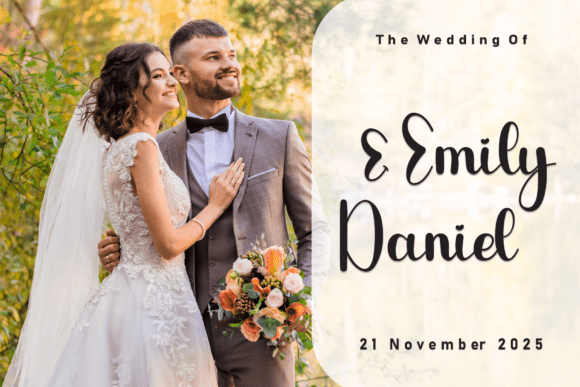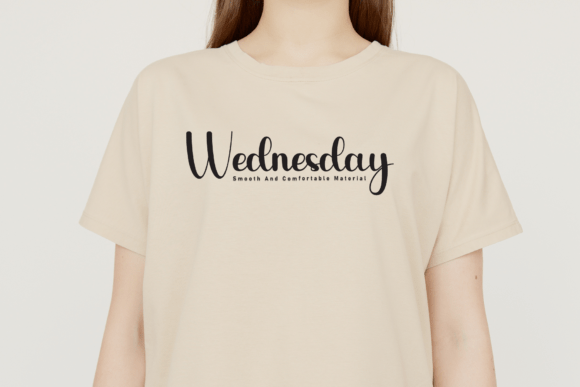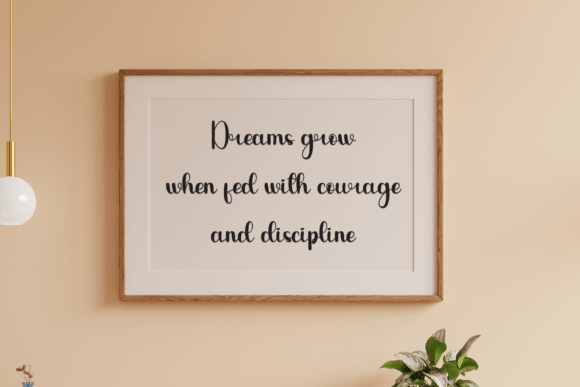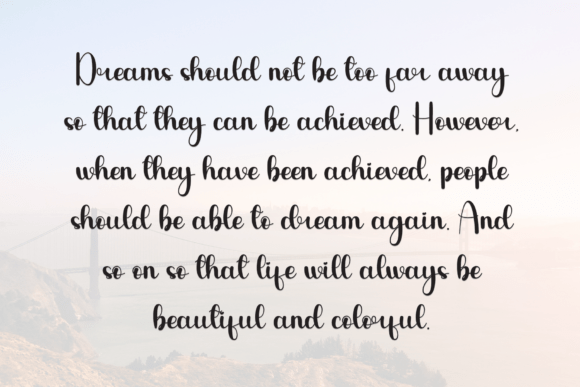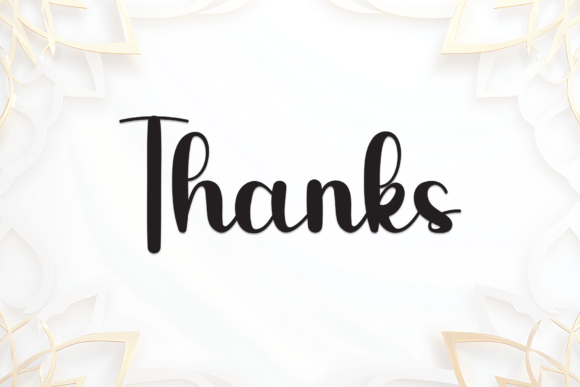
Elegant Font: Elevate Your Designs with Refined Handwritten Charm
In the world of typography, few fonts capture the essence of sophistication and warmth as effortlessly as Elegant Font. This refined handwritten typeface is meticulously designed to convey a sense of charm and authenticity, making it an ideal choice for designers and crafters seeking to add a touch of elegance to their projects. Whether you’re working on wedding invitations, greeting cards, branding materials, or creative endeavors, Elegant Font offers a natural, personal feel that is sure to leave a lasting impression.
The Characteristics of Elegant Font
Elegant Font boasts graceful strokes and fluid movement, which collectively contribute to its distinctive, organic feel. The balanced letterforms are delicately crafted to exude a sense of refinement while maintaining excellent readability. This harmonious blend of delicacy and legibility makes Elegant Font suitable for both print and digital applications. The font’s versatility allows it to seamlessly integrate into various design contexts, ensuring that your work stands out with a polished, expressive character.
PUA Encoding for Enhanced Customization
One of the key features that set Elegant Font apart is its PUA (Private Use Area) encoding. This encoding ensures easy access to all glyphs, swashes, and alternate characters, allowing for seamless customization and creativity. Designers can effortlessly navigate through the font’s extensive range of characters to select the perfect elements for their projects. This level of accessibility not only streamlines the design process but also empowers designers to experiment with unique typographic expressions.
Ideal Applications for Elegant Font
Elegant Font’s versatile nature makes it an excellent fit for a wide array of design applications. Some of the most popular uses include:
- Wedding Invitations: Add a touch of romance and sophistication to your wedding stationery with Elegant Font’s charming and refined appearance.
- Greeting Cards: Create heartfelt and visually appealing greeting cards for special occasions, such as birthdays, anniversaries, and holidays.
- Branding Materials: Elevate your brand’s visual identity with Elegant Font’s elegant and professional aesthetic, perfect for logos, packaging, and marketing materials.
- Creative Projects: Infuse your creative endeavors, such as art journals, scrapbooking, and digital art, with a personal and artistic touch using Elegant Font.
Why Choose Elegant Font?
For designers and crafters seeking a handwritten font that embodies both elegance and expressiveness, Elegant Font stands out as a superior choice. Its unique blend of warmth, charm, and sophistication allows it to bring a distinctive character to any project. Furthermore, the font’s PUA encoding and extensive range of glyphs, swashes, and alternate characters provide unparalleled flexibility and creative freedom.
Tips for Maximizing Elegant Font’s Potential
To fully leverage Elegant Font’s capabilities and make the most of its elegant features, consider the following tips:
- Experiment with Swashes: Take advantage of the font’s swashes and alternate characters to add flair and personality to your designs.
- Mix and Match: Combine Elegant Font with complementary fonts to create visually striking typographic hierarchies.
- Pay Attention to Spacing: Adjust the spacing between letters and words to enhance the font’s natural flow and readability.
- Explore Digital Capabilities: Don’t hesitate to use Elegant Font in digital projects, such as website designs and social media graphics, to add a personal touch.
In conclusion, Elegant Font offers an unbeatable combination of elegance, versatility, and creative freedom, making it an indispensable tool for designers and crafters. Its refined handwritten appearance, PUA encoding, and extensive customization options ensure that your projects will exude warmth, charm, and sophistication. Embrace Elegant Font in your designs and discover a world of limitless creative possibilities.